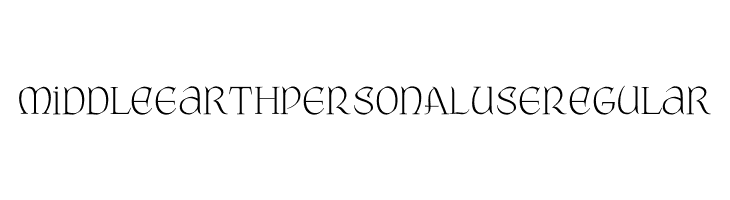
A bold, gothic-inspired font with sharp, angular edges and dramatic serifs.
A decorative script with a fantasy-inspired, flowing design and diagonal slant.
An elegant, calligraphic font inspired by the Tengwar script, perfect for fantasy-themed projects.
A decorative script with flowing, intricate lines inspired by Tengwar.
A bold, 3D decorative font with intricate line work and geometric patterns.
A bold, geometric font with intricate concentric patterns.
A bold, angular font with a medieval or fantasy-inspired aesthetic.
A mystical, rune-like font with sharp, angular characters.
A bold, angular font with a medieval, fantasy-inspired design.
Decorative, abstract script with a hand-drawn, ancient feel.
A bold, decorative font with intricate geometric patterns and concentric circles.
A bold, decorative font with a hollow, extruded style and intricate line work.
A bold, futuristic font with a 3D effect and geometric design.
A futuristic, bold font with rounded edges and a geometric design.
A modern, slanted outline font with a futuristic and dynamic style.
A bold, futuristic font with sharp angles and a dynamic slant.
A futuristic, 3D geometric font with bold lines and sharp angles.
A futuristic outline font with geometric and modern design elements.
A bold, futuristic font with a dynamic slant and rounded, cutout characters.
A futuristic 3D italic font with bold outlines and a dynamic, modern style.
A bold, futuristic 3D font with a slanted, dynamic design.
A whimsical and decorative font with playful curls and loops, perfect for fantasy-themed projects.
A decorative font with geometric shapes and intricate detailing, perfect for fantasy themes.
A whimsical, angular font with decorative swirls and spikes, perfect for fantasy themes.
A bold, gothic-style font with sharp edges and intricate curves, perfect for horror or fantasy themes.
The image contains decorative symbols, not a valid font.
A decorative font with nautical and mechanical elements, perfect for fantasy-themed projects.
A whimsical and playful font with tall, narrow characters and dynamic stroke variations.
A decorative, abstract font with mystical, glyph-like characters.
A playful, whimsical font with tall, narrow letters and a hand-drawn aesthetic.
A bold, medieval-inspired font with sharp, angular serifs and a commanding presence.
An elegant and flowing script font with decorative swashes.